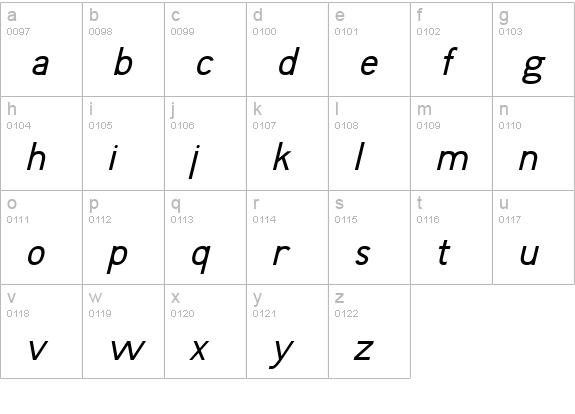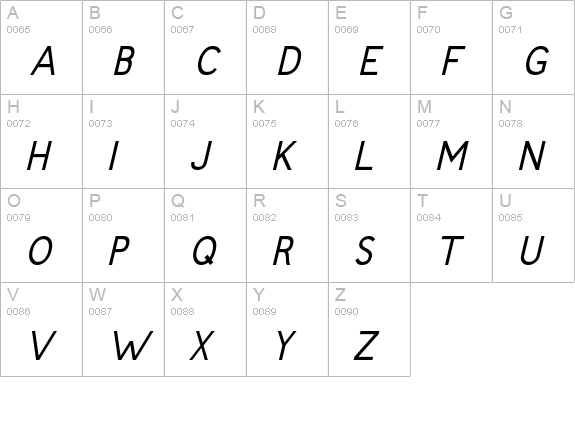
Fudd Italic Font Details
Fudd Italic is a distinctive, italic variant in the Fudd typeface family \xE2\x80\x94 well suited to design and typography projects.
Fudd Italic font is a stunning and visually appealing typeface that effortlessly blends sophistication with a touch of playfulness. Its elegant and flowing curves add a unique charm to any design project, making it stand out from the crowd. With its smooth and graceful strokes, Fudd Italic font exudes a sense of modernity and versatility, making it suitable for a wide range of applications. Whether you're designing a logo, creating a poster, or crafting a stylish invitation, this font is sure to elevate your design to the next level. What sets Fudd Italic font apart is not just its visual appeal, but also its accessibility. Unlike many other premium fonts, Fudd Italic font is available to download for free at FontsMarket.com. This means that you can enjoy the beauty and versatility of this font without any cost, making it a perfect choice for both personal and commercial projects. In addition to its aesthetic appeal and accessibility, Fudd Italic font also offers exceptional legibility, ensuring that your message is conveyed clearly and effectively. Its well-balanced proportions and carefully crafted letterforms make it easy to read, even at smaller sizes. Whether you're a professional designer or a casual enthusiast, Fudd Italic font is a must-have addition to your font collection. Its timeless elegance, combined with its versatility and free availability, make it a valuable asset for any creative project. So why wait? Head over to FontsMarket.com today and download Fudd Italic font to add a touch of sophistication and charm to your designs.